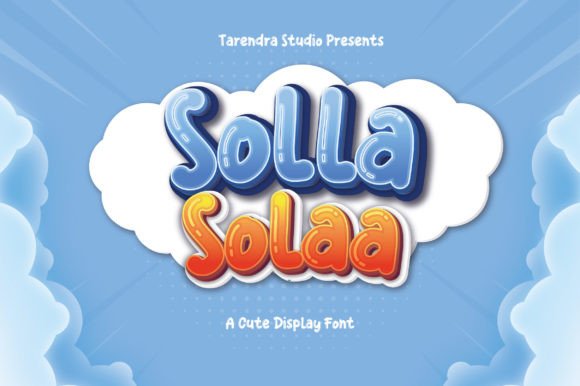
Are you looking for the perfect font to create an eye-catching and engaging wild west poster? Look no further than Solla Solaa, the best font for wild west poster design.
Created by Juliolailydomingo, Solla Solaa is a display font that is quirky, cute, cool, fun, and playful all at the same time. With its unique and distinctive style, Solla Solaa is guaranteed to capture attention and make a lasting impression.
Whether you are designing a poster, flyer, or any other creative project, Solla Solaa is the perfect font choice for titles or words needing a more cute or dramatic emphasis. Its versatility and potential to enhance any creation make it a valuable asset to your font library.